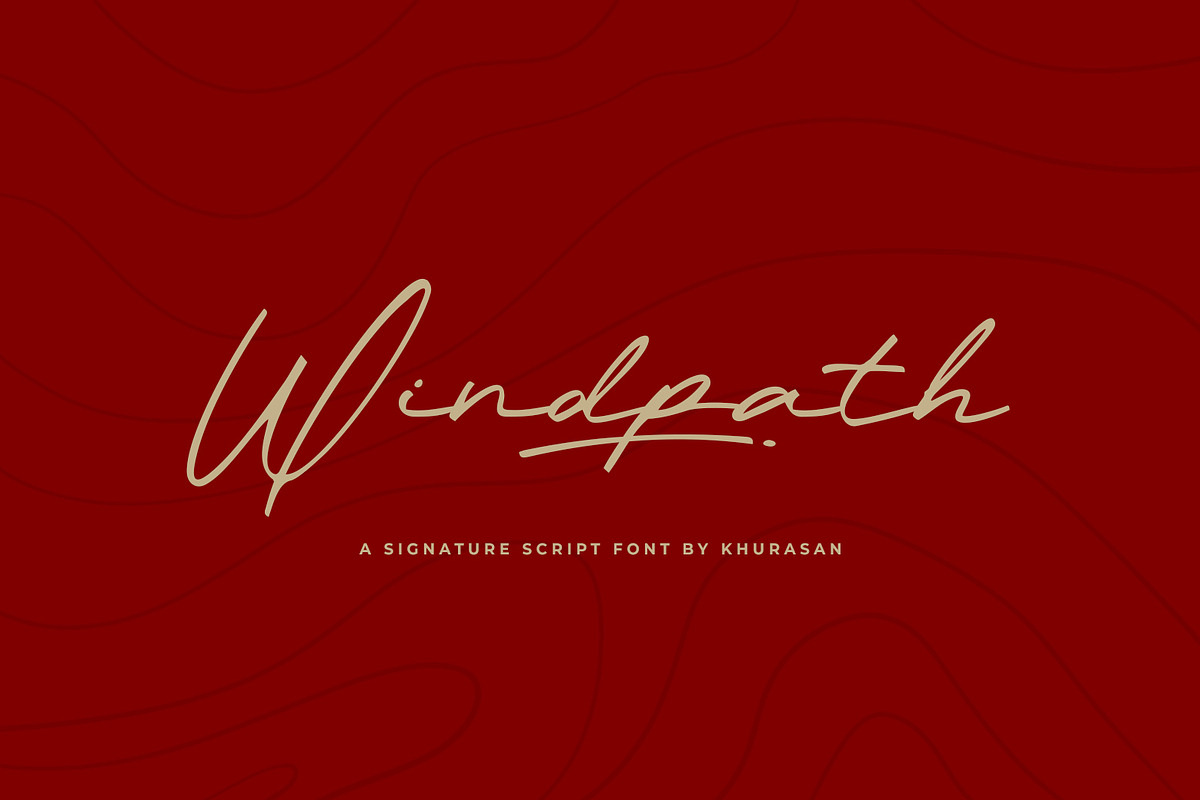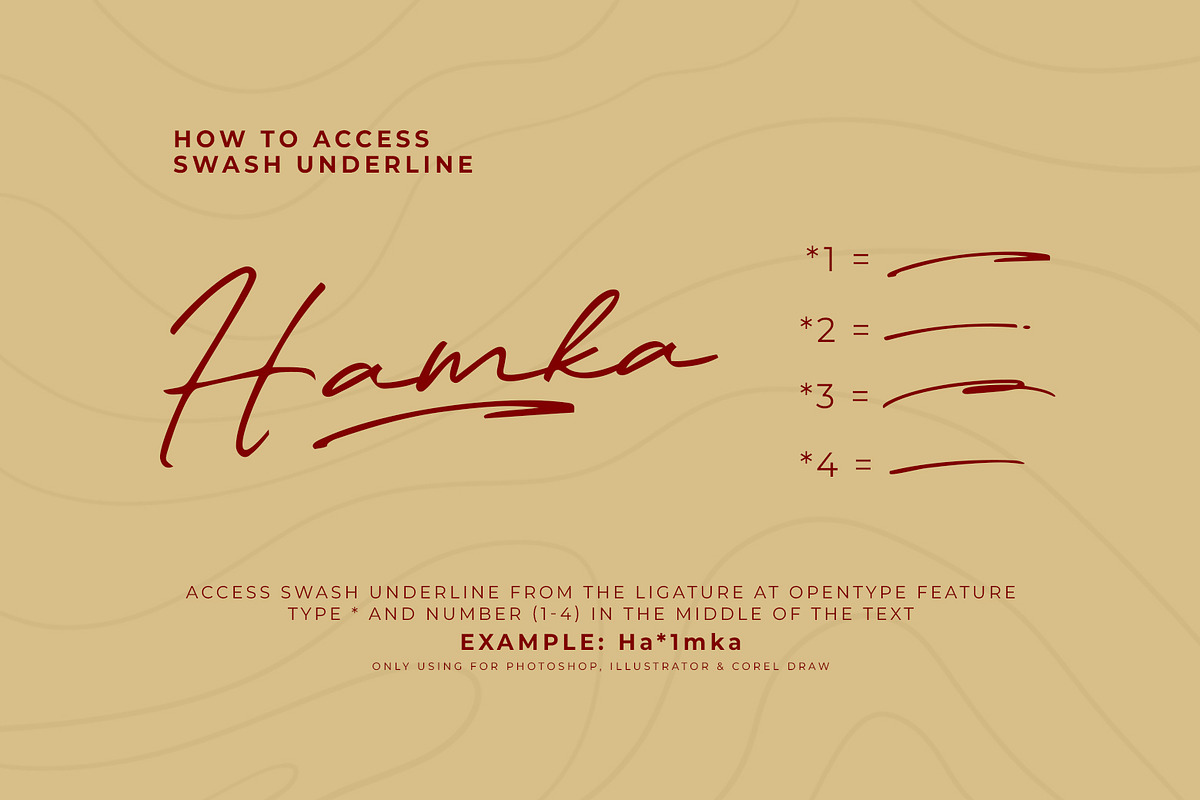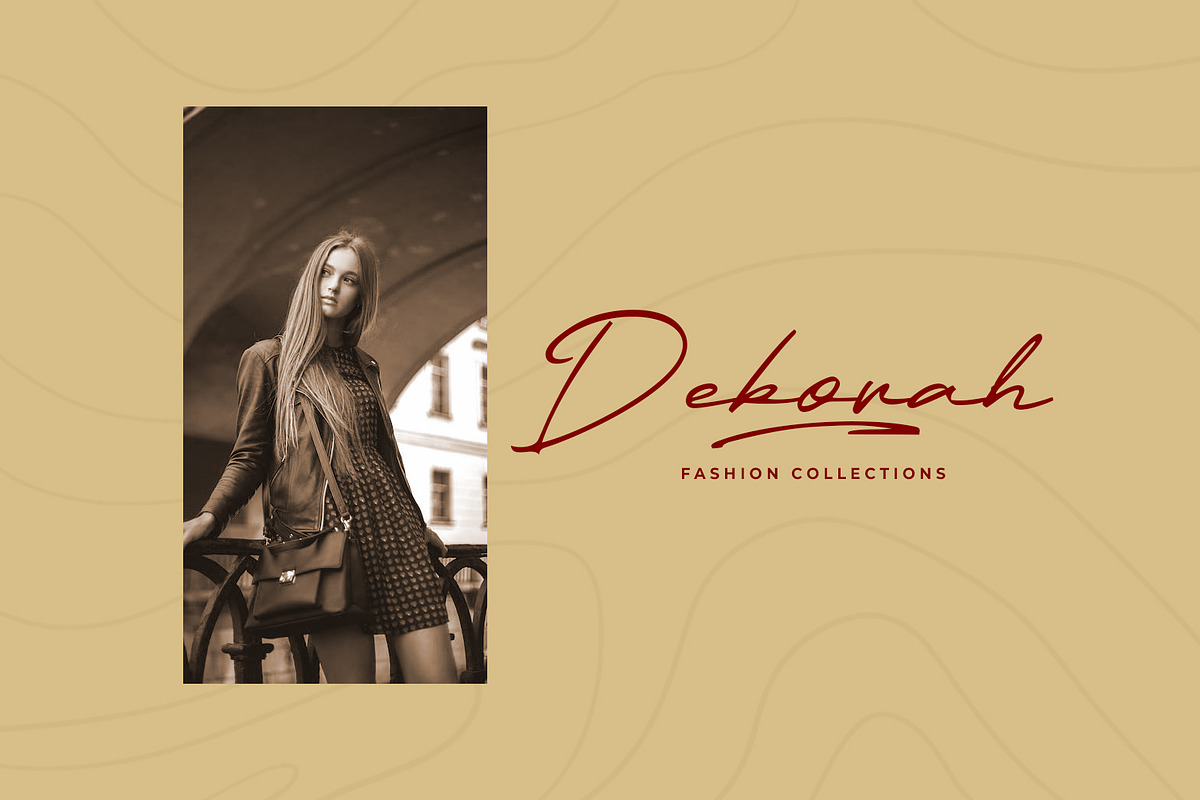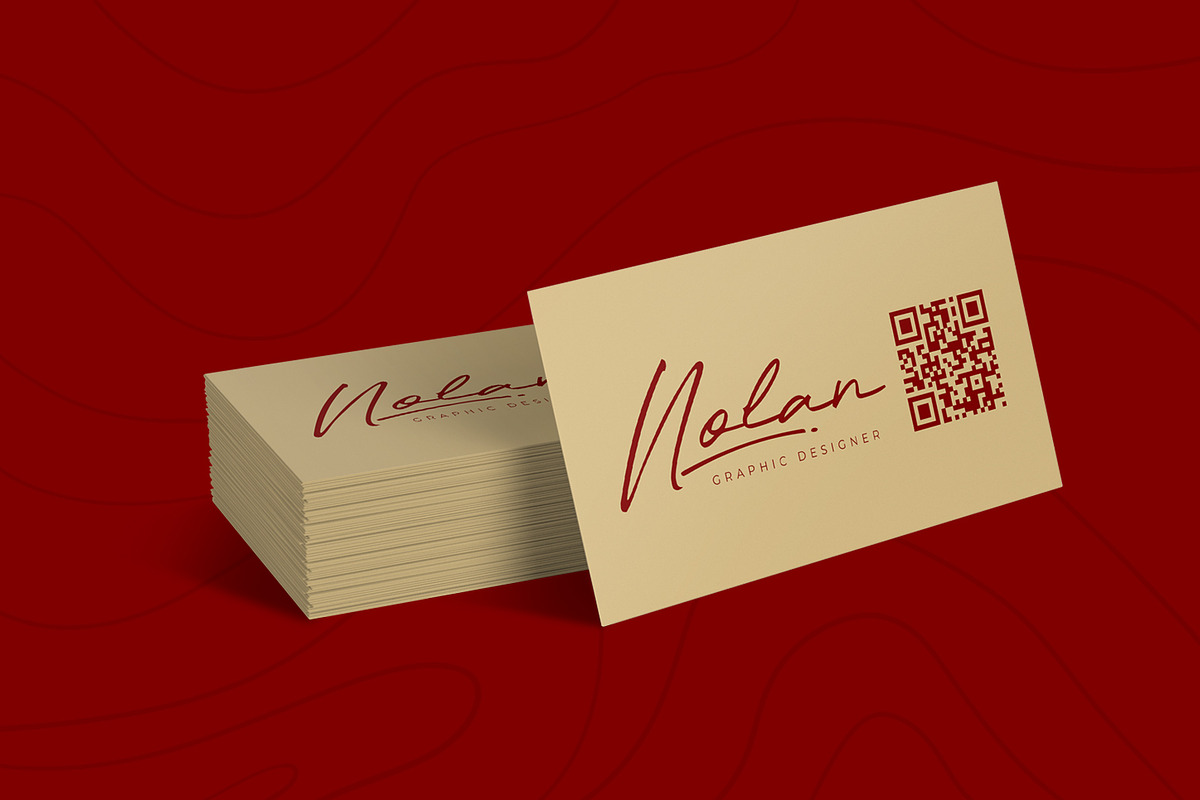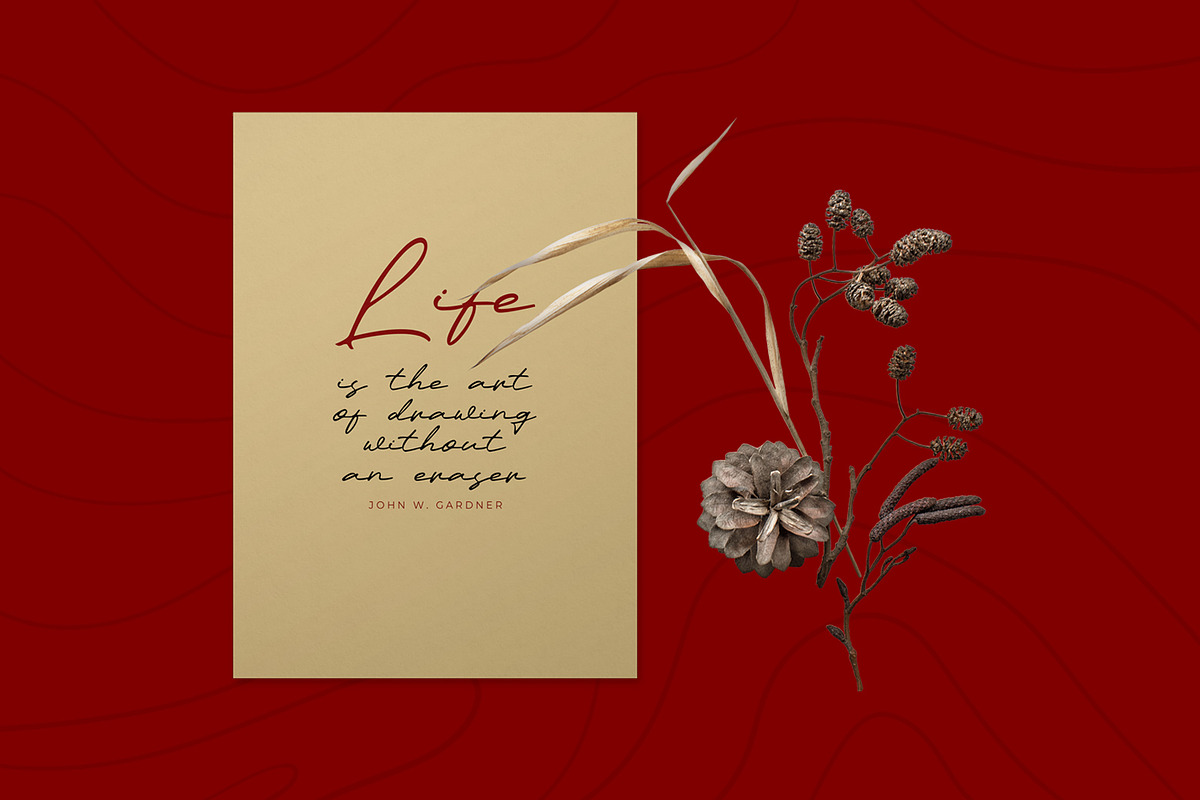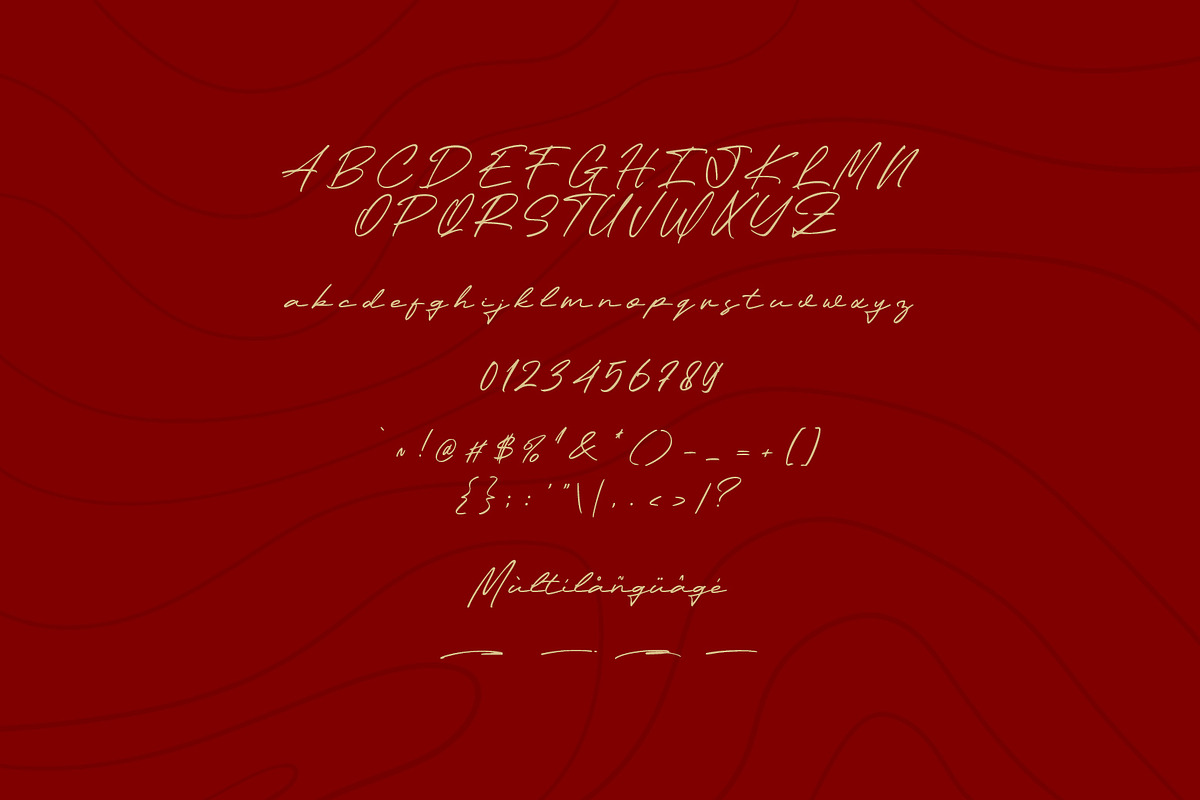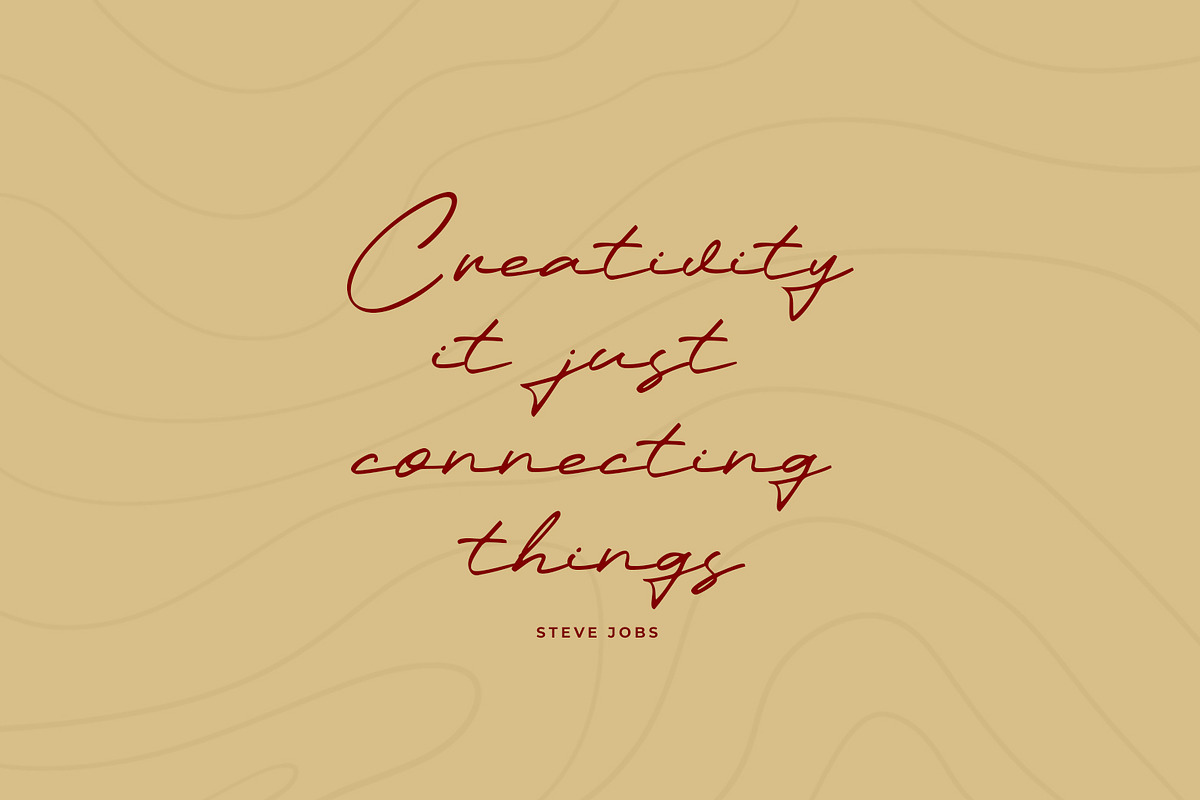
Windpath Script
Windpath is a modern script font. Windpath font suitable for logo, branding, greeting card, poster and any design that you create…!
Khurasan